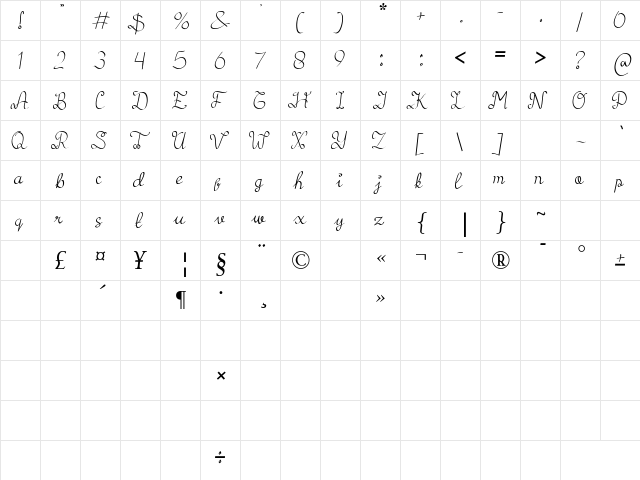
Adinda Regular Font Preview
Adinda Regular
Adinda Regular Font Details
Design Context for Adinda Typeface
Adinda is a composed and adaptable typeface that performs quietly and consistently across a wide range of design contexts.